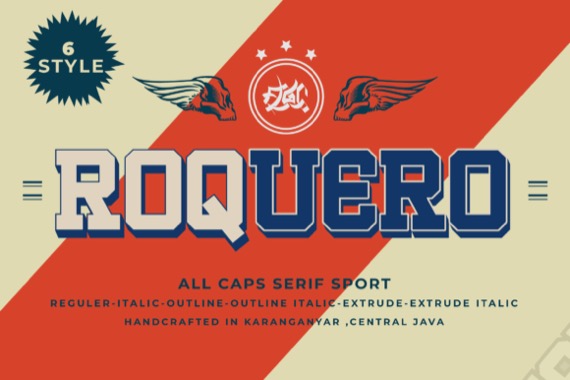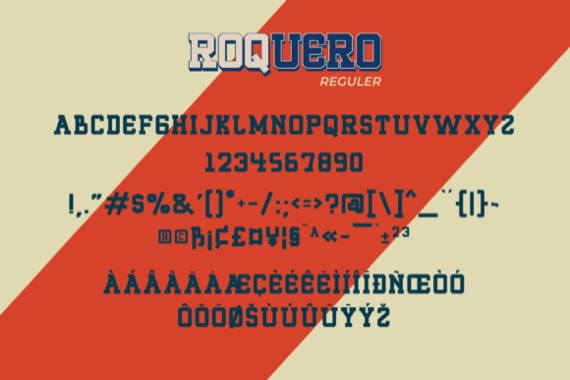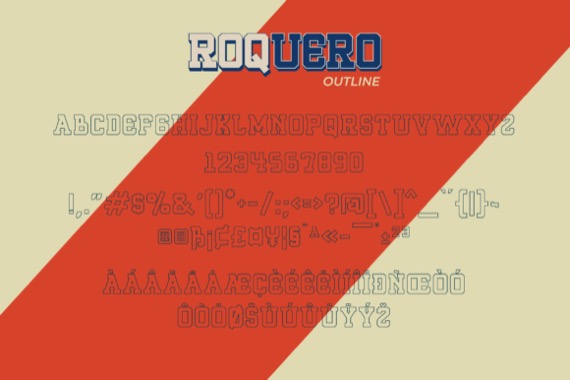
Roquero Serif Font is a contemporary and classic serif with strong serifs that give it an elegant look. Roquero has an equally rigid and dynamic look which makes this original serif font a great addition to any sports-themed project! It comes in a variety of versions, ranging from extrude to italic!
Roquero Display Serif Font